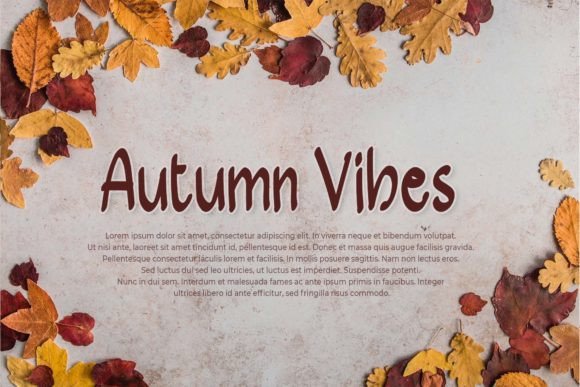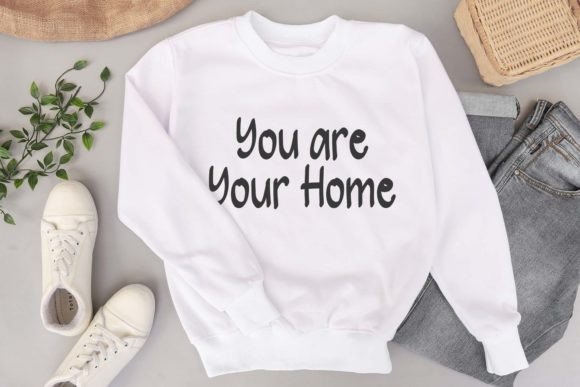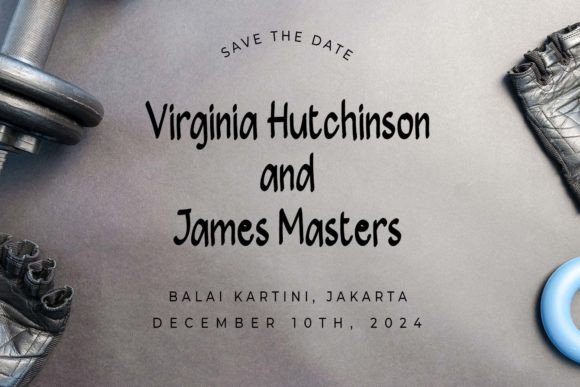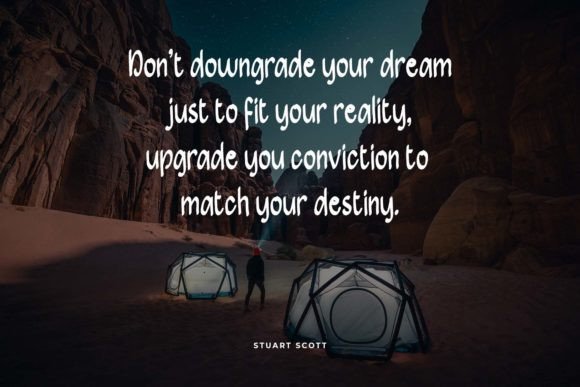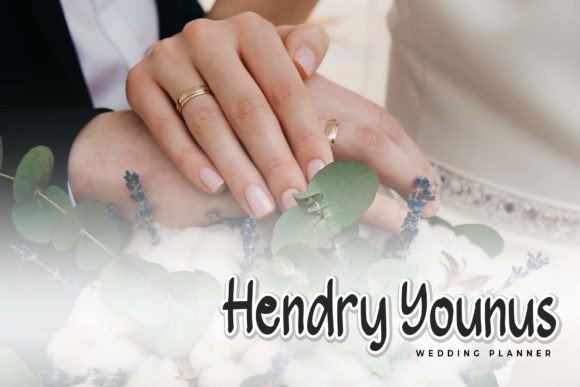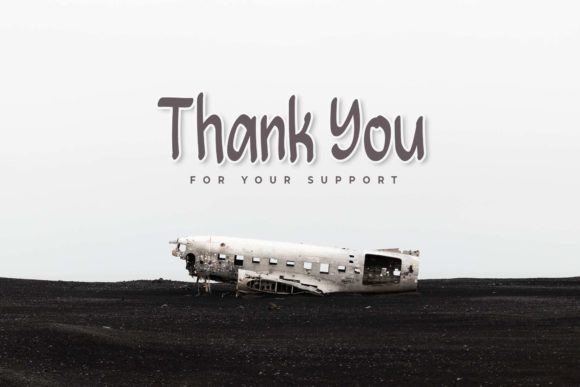
Introducing Grilled Chicken Font: The Perfect Addition to Your Crafty Ideas
Are you a designer, crafter, or DIY enthusiast looking for a unique and fun font to add a personal touch to your projects? Look no further than Grilled Chicken Font! This delightful handwritten font is sure to bring a smile to your face and a touch of whimsy to your creations. In this article, we’ll explore the features and benefits of Grilled Chicken Font, and show you how to make the most of this versatile and charming font.
What is Grilled Chicken Font?
Grilled Chicken Font is a fun and playful handwritten font that’s perfect for adding a personal touch to your crafty ideas. With its casual, laid-back vibe, this font is ideal for a wide range of projects, from greeting cards and invitations to social media posts and product packaging. Whether you’re a professional designer or a DIY enthusiast, Grilled Chicken Font is sure to inspire your creativity and bring a touch of personality to your work.
Key Features of Grilled Chicken Font
- Handwritten style: Grilled Chicken Font has a charming, handwritten style that’s perfect for adding a personal touch to your projects.
- Fun and playful: This font has a fun and playful vibe that’s sure to bring a smile to your face and a touch of whimsy to your creations.
- Versatile: Grilled Chicken Font is versatile and can be used for a wide range of projects, from cards and invitations to social media posts and product packaging.
Uses for Grilled Chicken Font
Grilled Chicken Font is perfect for a wide range of projects, including:
- Cards and invitations: Add a personal touch to your greeting cards and invitations with Grilled Chicken Font.
- Social media posts: Use Grilled Chicken Font to add a touch of personality to your social media posts and make them stand out.
- Product packaging: Add a personal touch to your product packaging with Grilled Chicken Font and make your products more appealing to customers.
- Crafting projects: Use Grilled Chicken Font to add a touch of whimsy to your crafting projects, such as scrapbooking, journaling, and more.
Tips for Using Grilled Chicken Font
Here are some tips for using Grilled Chicken Font:
- Experiment with different colors: Try using Grilled Chicken Font in different colors to add a pop of color to your projects.
- Mix and match with other fonts: Combine Grilled Chicken Font with other fonts to create a unique and interesting look.
- Use it for headings and titles: Use Grilled Chicken Font for headings and titles to add a touch of personality to your projects.
- Don’t be afraid to get creative: Grilled Chicken Font is a versatile font that can be used in a wide range of projects, so don’t be afraid to get creative and try new things!
| Font Name | Grilled Chicken Font |
| Author | Doehantz Studio |
Grilled Chicken Font is a fun and playful handwritten font that’s perfect for adding a personal touch to your crafty ideas. With its casual, laid-back vibe and versatile design, this font is ideal for a wide range of projects, from cards and invitations to social media posts and product packaging. Whether you’re a professional designer or a DIY enthusiast, Grilled Chicken Font is sure to inspire your creativity and bring a touch of personality to your work. So why wait? Download Grilled Chicken Font today and start adding a touch of whimsy to your projects!